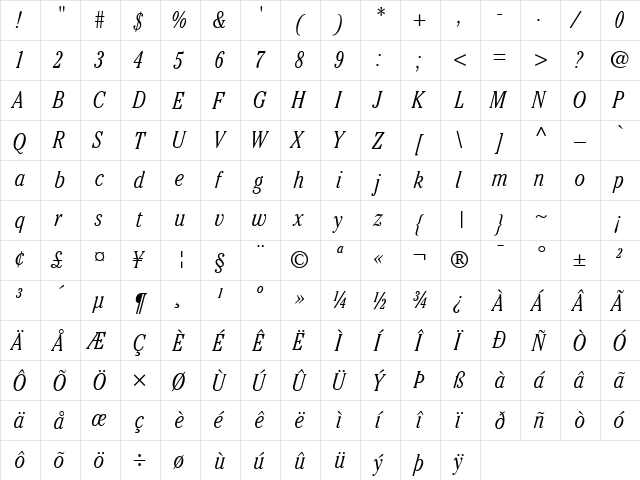
Cheltenham Light Condensed SSi Light Condensed Italic Font Preview
Design Context for Cheltenham Light Condensed SSi Typeface
Cheltenham Light Condensed SSi is a composed and adaptable typeface that performs quietly and consistently across a wide range of design contexts. The slanted form adds forward momentum and visual energy. Its slender proportions lend an understated elegance to any composition. Its narrow stance lets it pack a punch even in space-constrained designs.
Pro Tip: Try Cheltenham Light Condensed SSi for annotation and caption copy alongside an upright companion — the contrast in angle creates a dynamic but ordered typographic system.